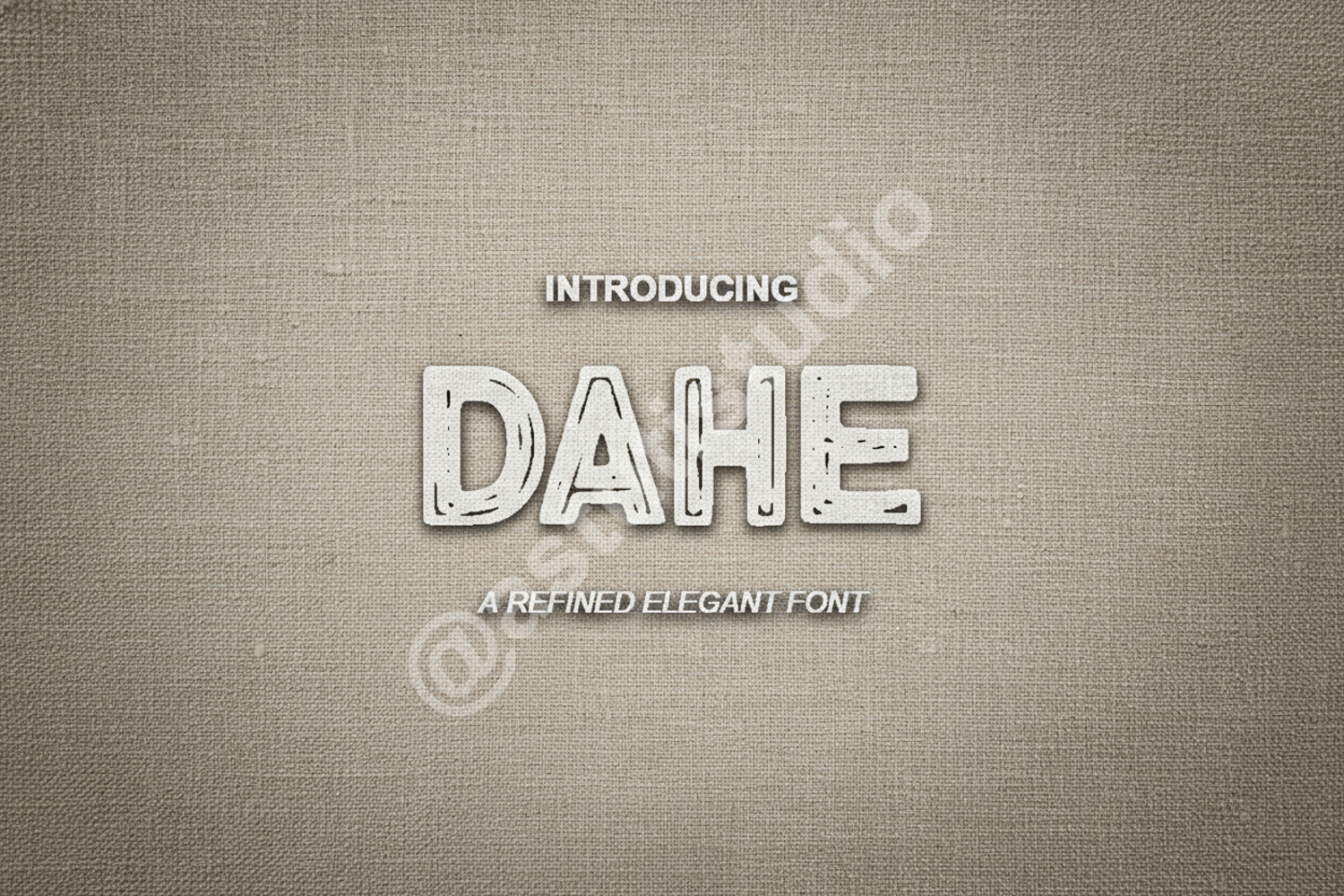
Dahe - Elegant Modern Sans Serif Typeface
Dahe
Dahe is a premium sans serif typeface meticulously crafted to balance modern aesthetics with timeless elegance. Its clean lines and sophisticated letterforms make it an essential tool for designers seeking a professional yet approachable look. Whether you are working on a high-end luxury brand or a minimalist editorial layout, Dahe provides the clarity and style your project deserves.
- Standard Ligatures and Alternates
- Branding and Visual Identity: Create memorable logos and cohesive brand guidelines.
- Wedding Stationery: Perfect for modern, chic invitations and ceremony programs.
- Editorial Design: Ideal for magazine headers, clean body text, and book covers.
- Digital Marketing: Elevate your social media graphics and website headers.
- Luxury Packaging: Add a touch of sophistication to product labels and boxes.